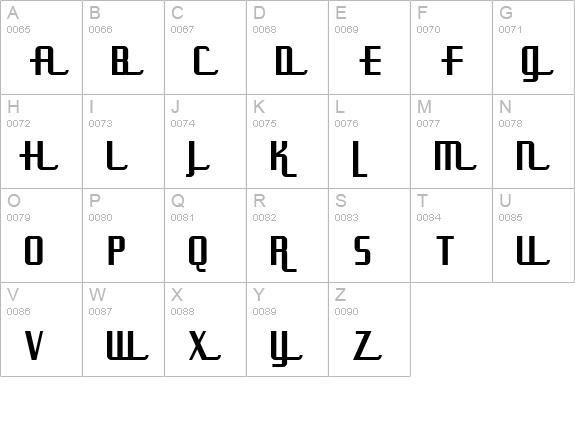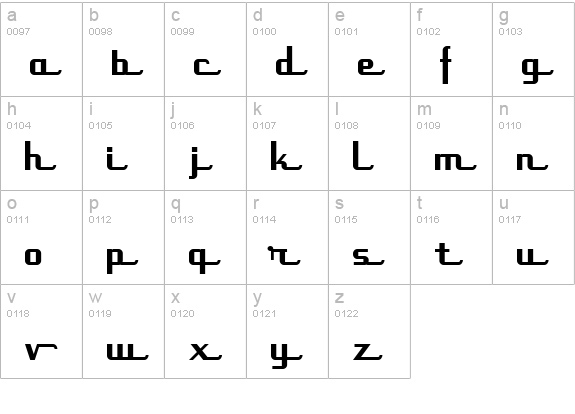
Uppen Arms NF Font Details
Uppen Arms NF is a stunning display font that exudes elegance and sophistication. With its unique blend of sharp angles and delicate curves, this typeface is perfect for making a bold statement in your design projects. Whether you're creating a logo, poster, or invitation, Uppen Arms NF will add a touch of class and style. The best part? Uppen Arms NF is completely free to download at FontsMarket.com. This means you can elevate your designs without having to spend a dime. Don't miss out on this incredible opportunity to enhance your creative endeavors with this exquisite font. Download Uppen Arms NF today and unleash your creativity!